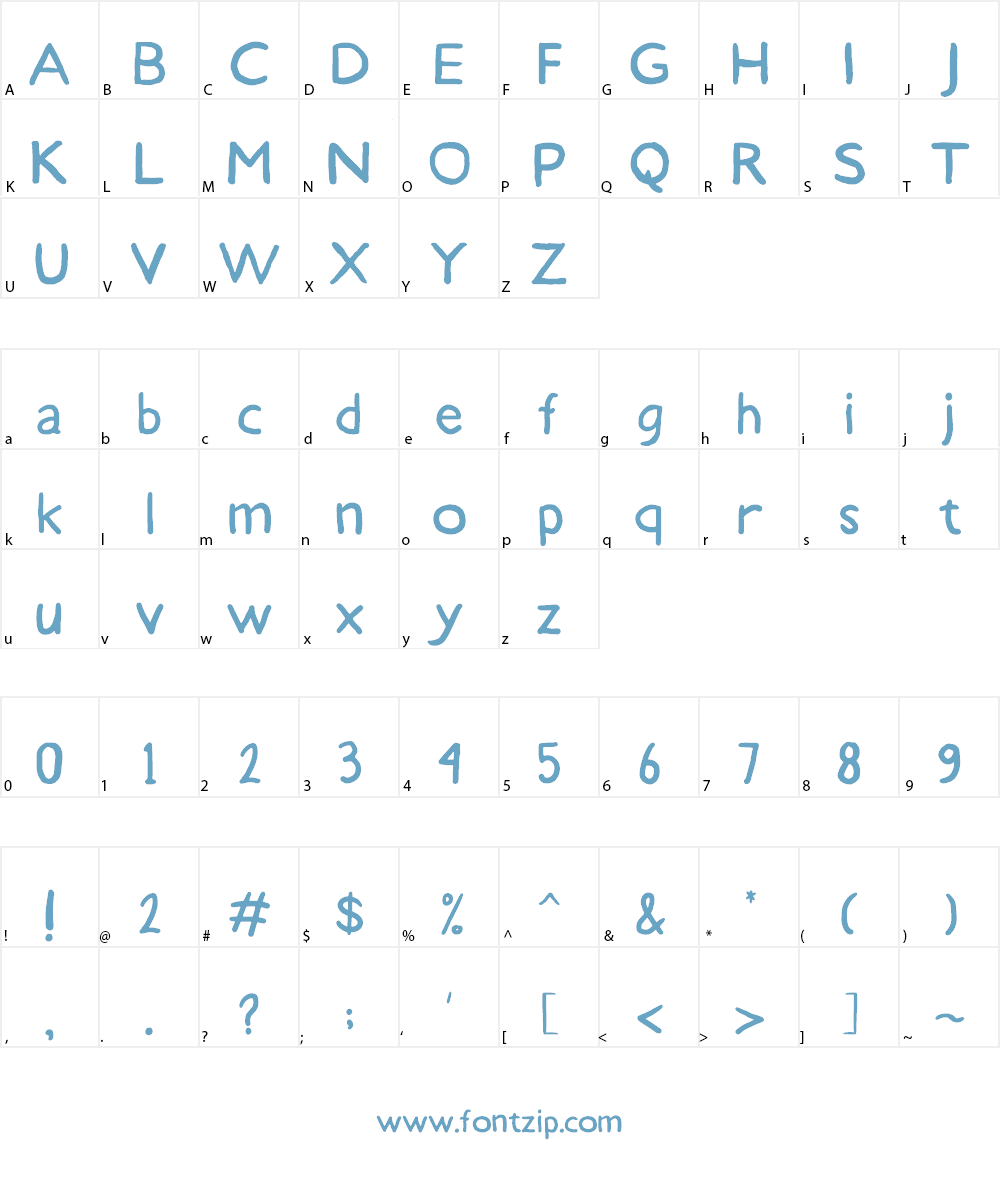
Girisenna is a handwritten font, this font have free spirit concept, tha character is so brave and strong! SO this font is match with poster design, sports, music, urban style design.